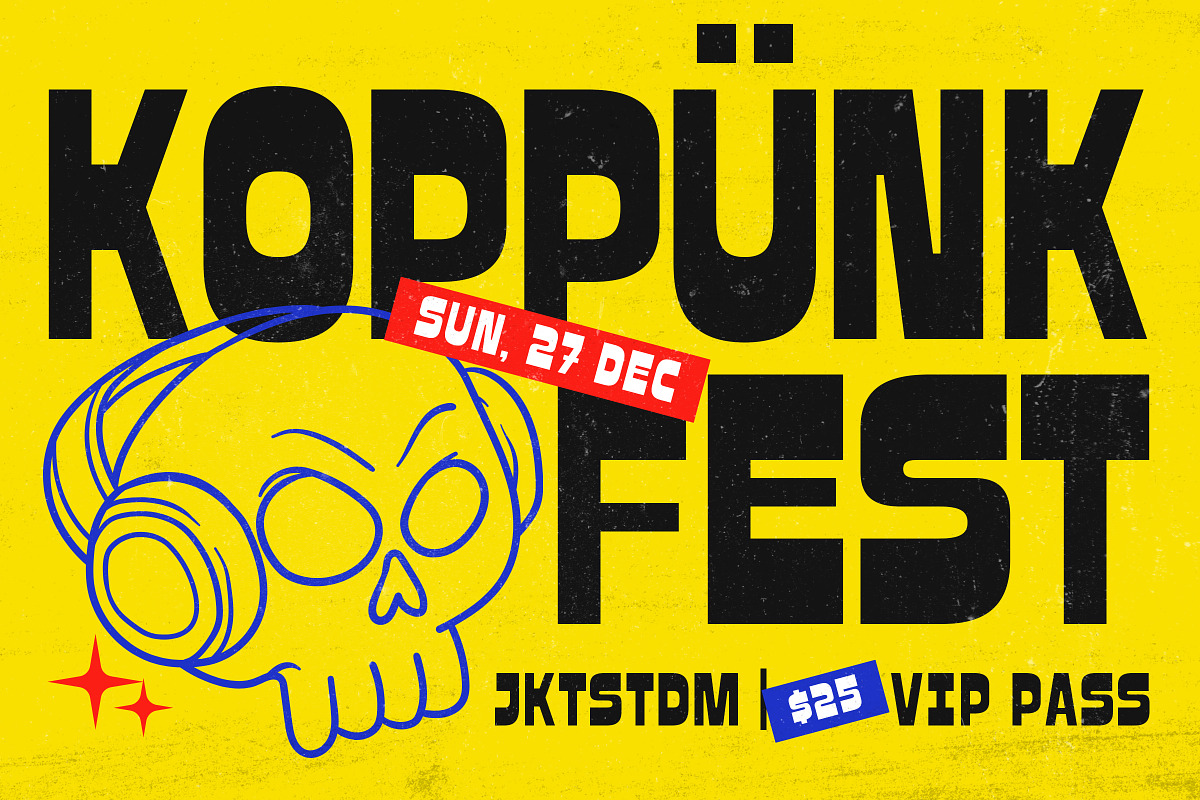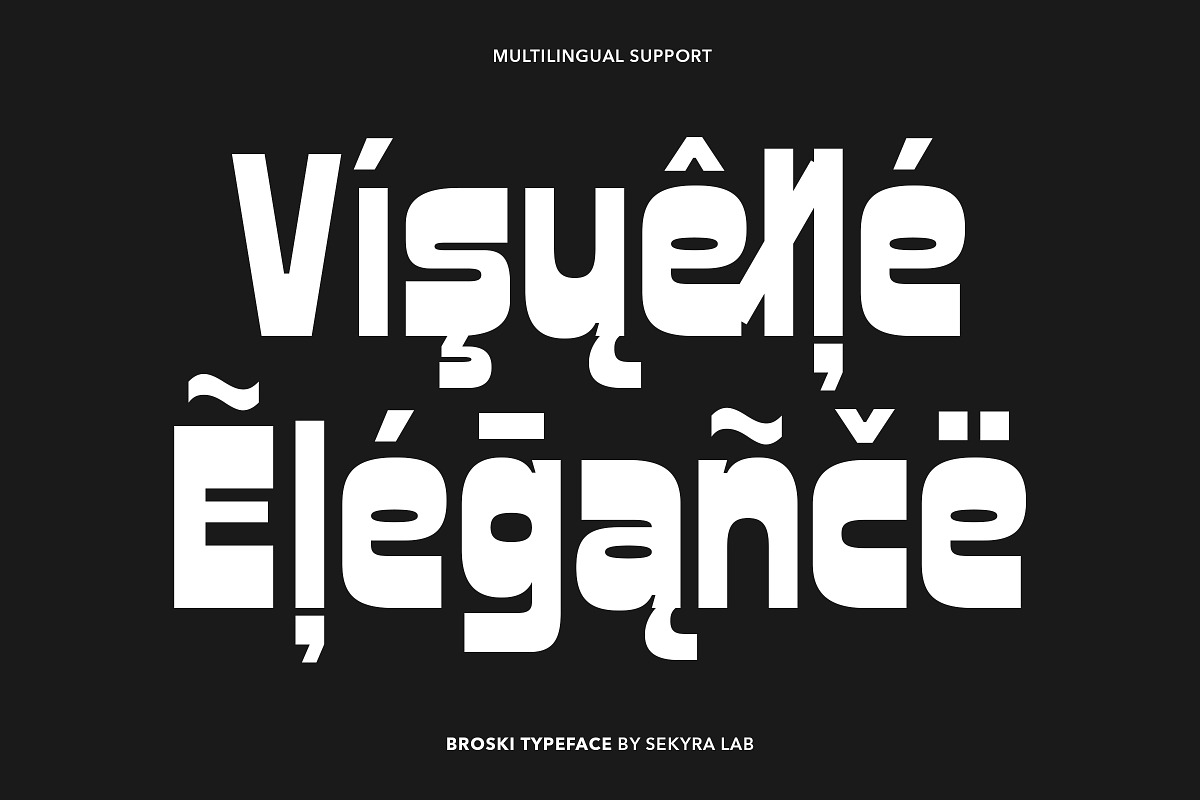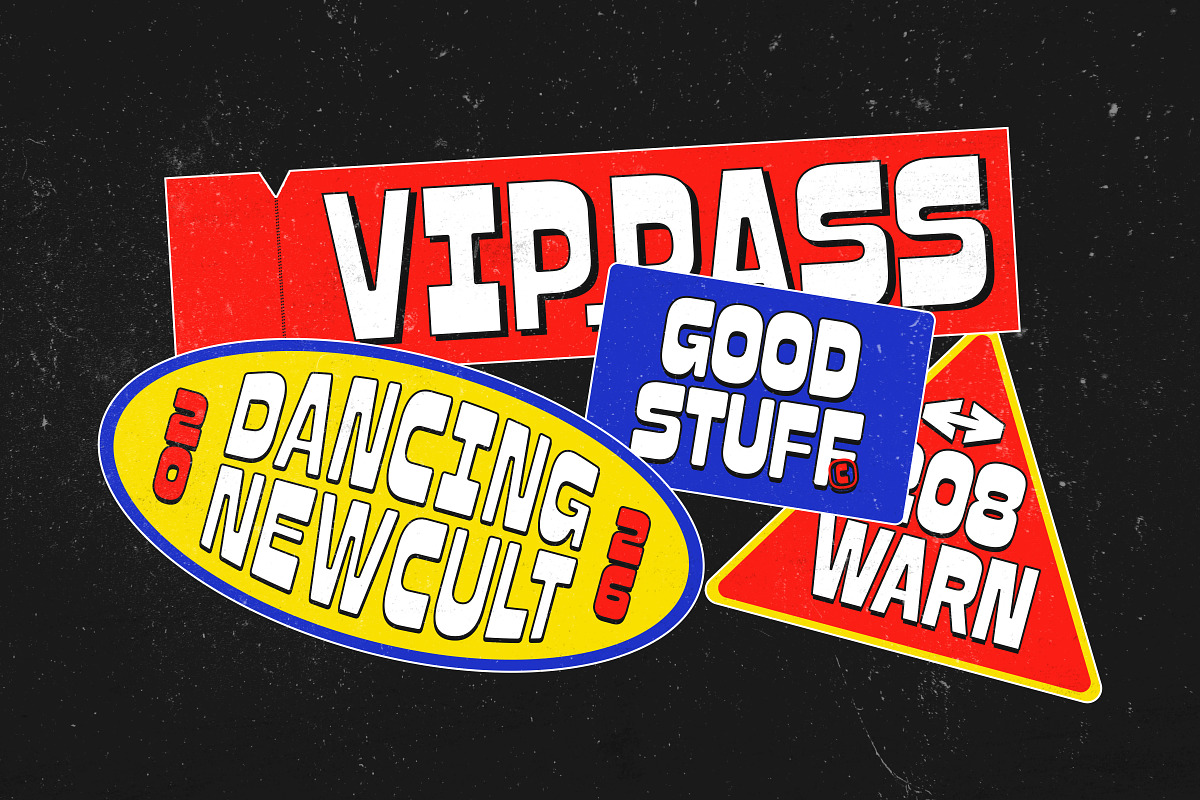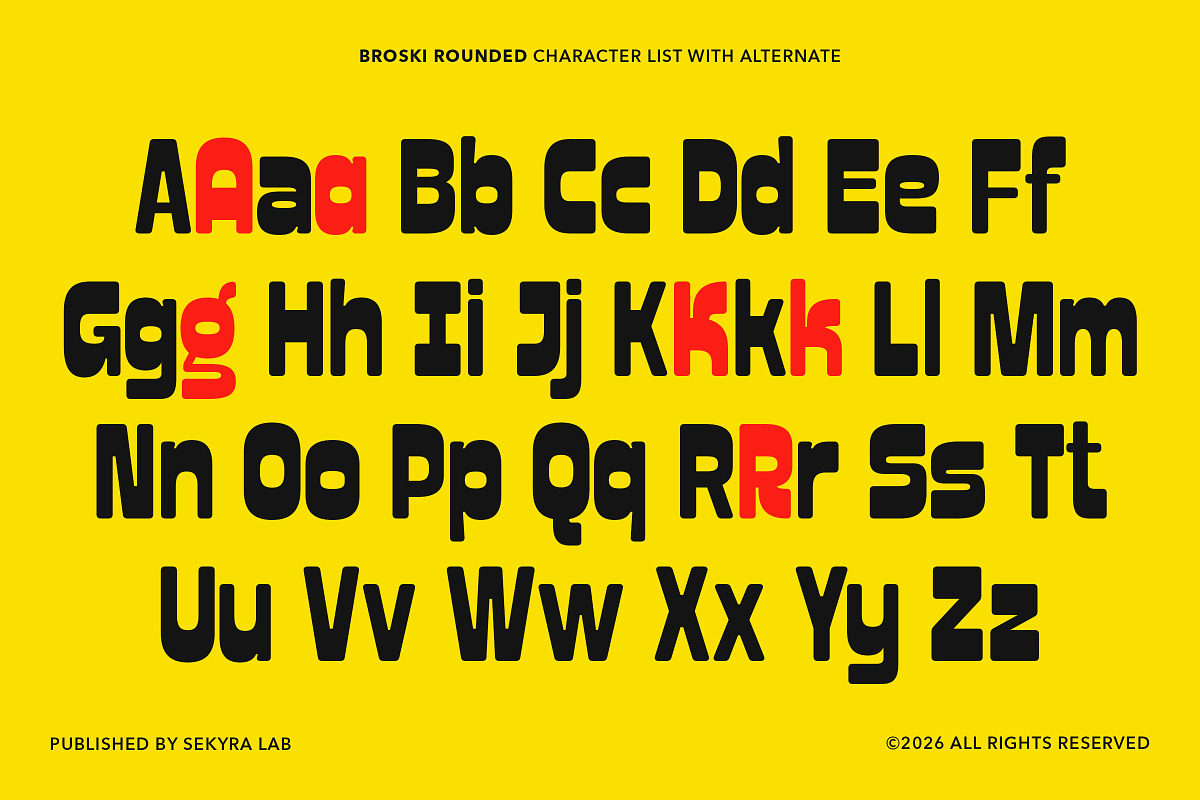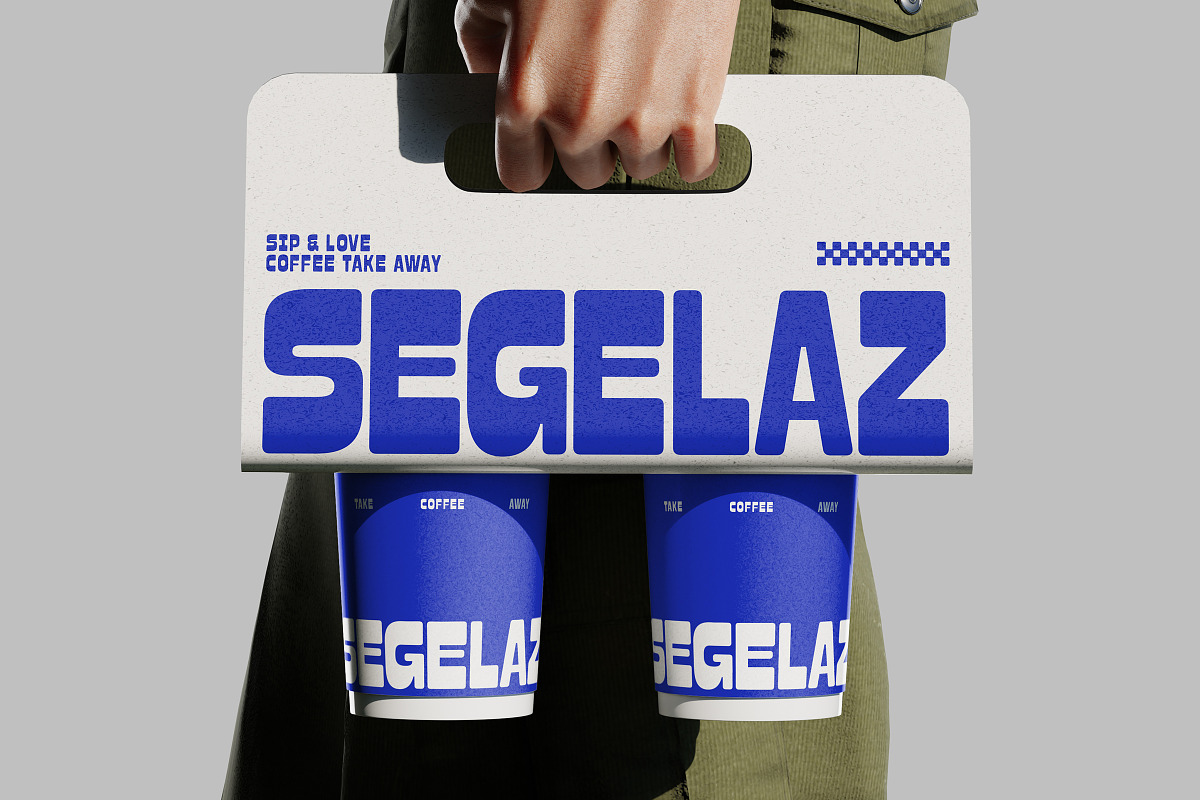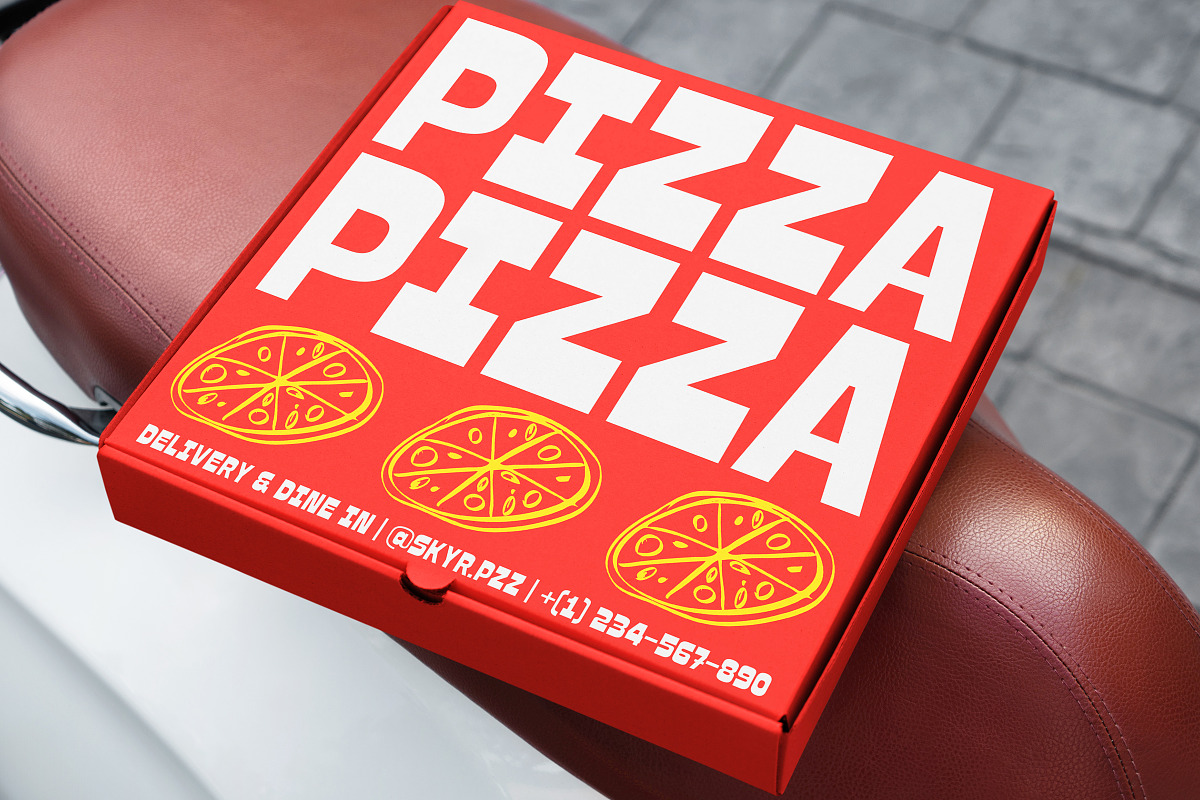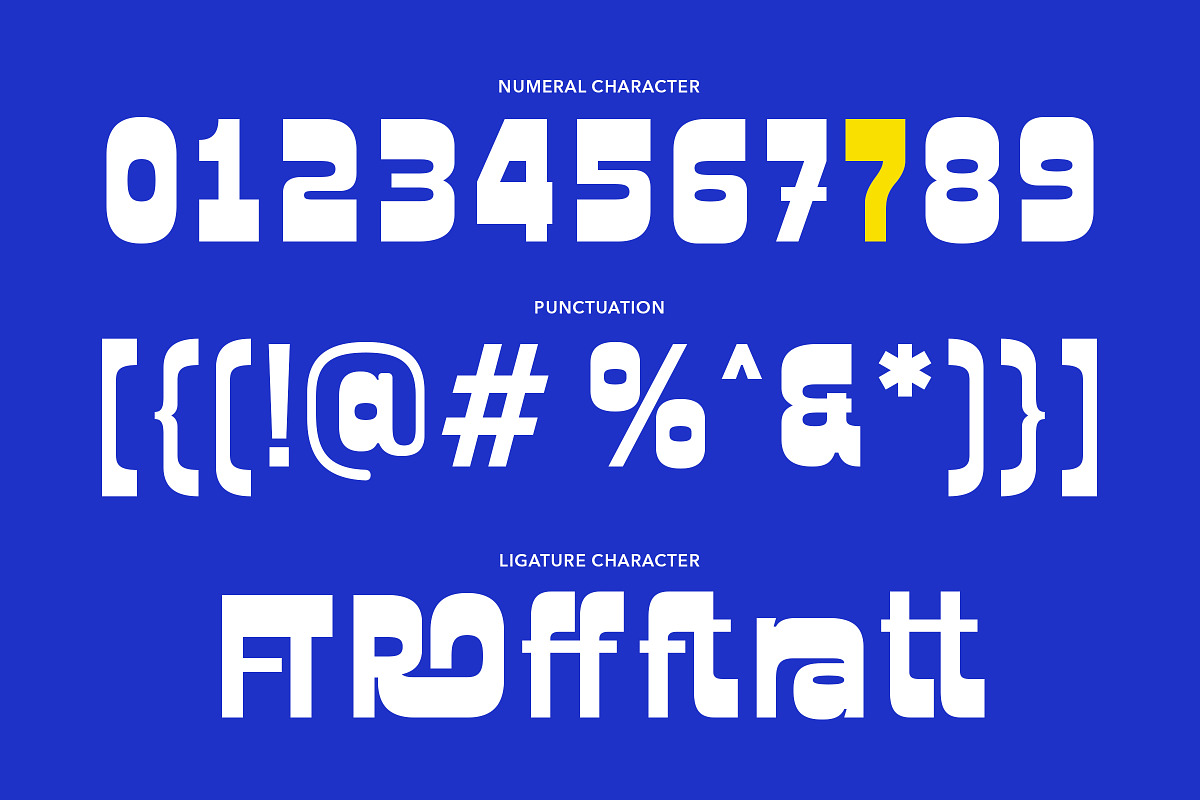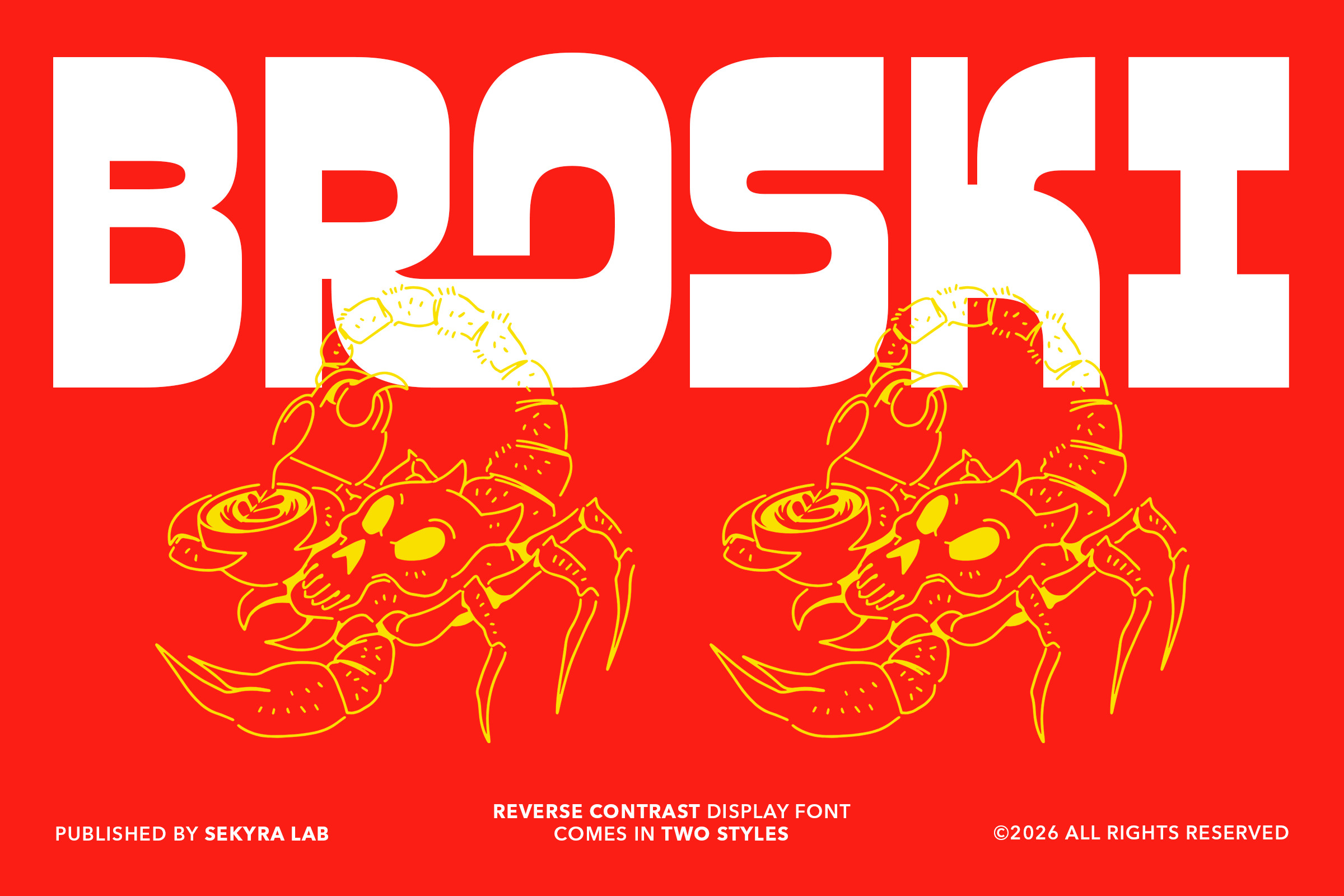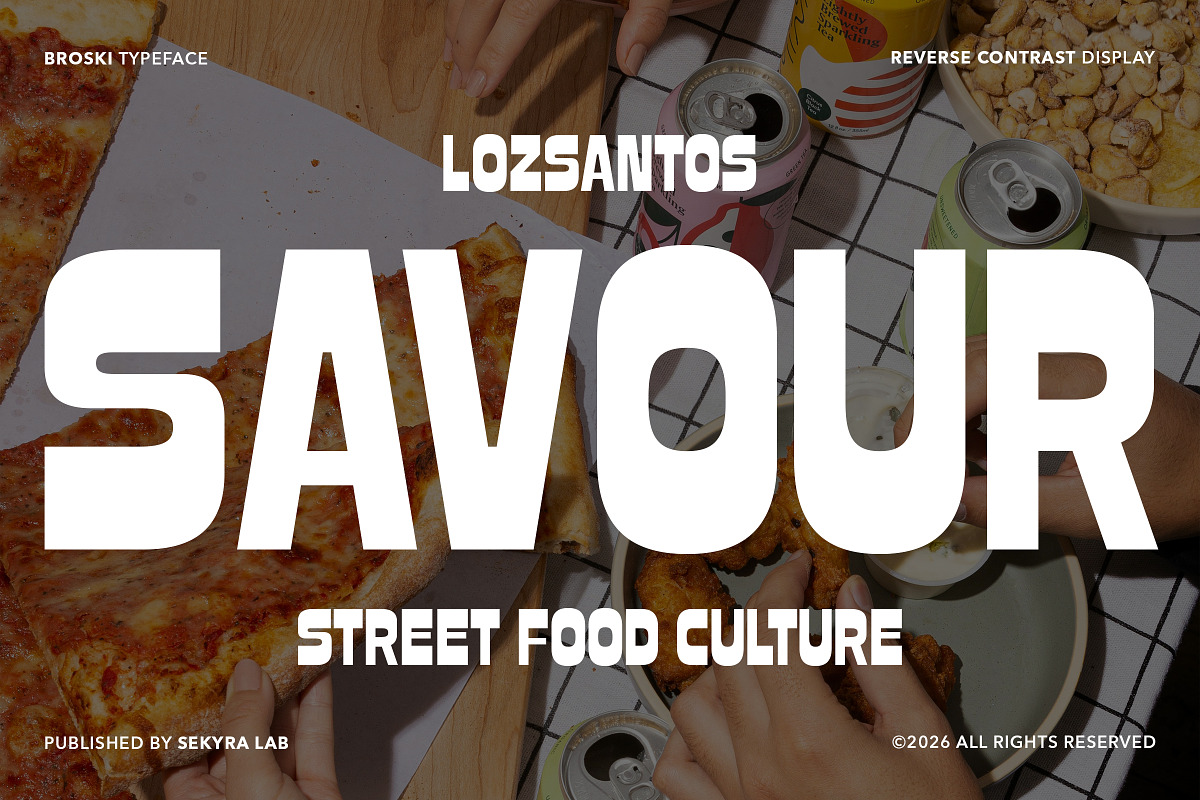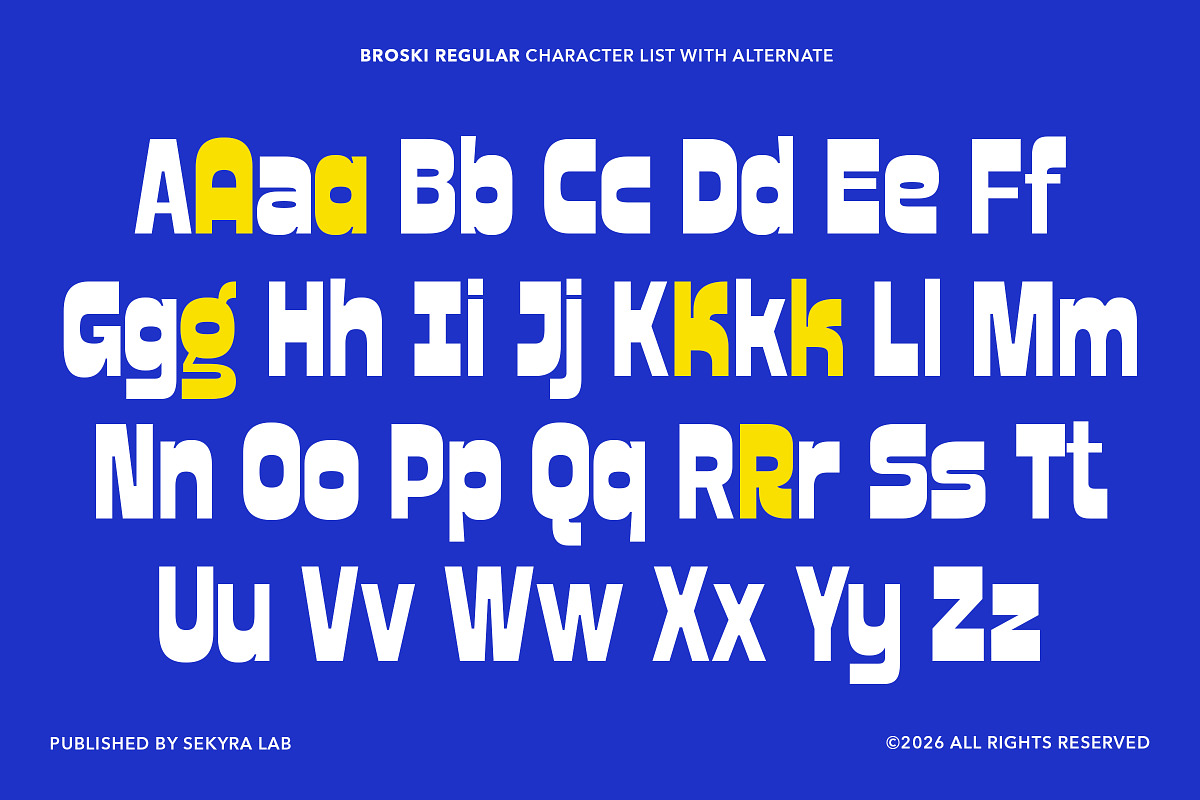
Broski - Contras Display Sans Font
Broski is a reverse contrast display font designed to bring bold energy and playful character into your creative projects. With its distinctive thick horizontals, unique proportions, and eye-catching letterforms, this font delivers a strong visual impact while remaining versatile for various design needs. Whether you're working on branding, posters, or digital content, it helps your work stand out effortlessly.
This font is perfect for designers looking to create fun, expressive, and standout visuals. Its unique reverse contrast style makes it suitable for both modern and retro-inspired designs, giving you flexibility across multiple creative directions. From bold headlines to eye-catching layouts, it ensures your typography grabs attention.
Suitable for / Best for: • Branding & Logo Design • Posters & Headlines • Social Media Graphics • Packaging Design • Merchandise & Apparel • Editorial & Advertising